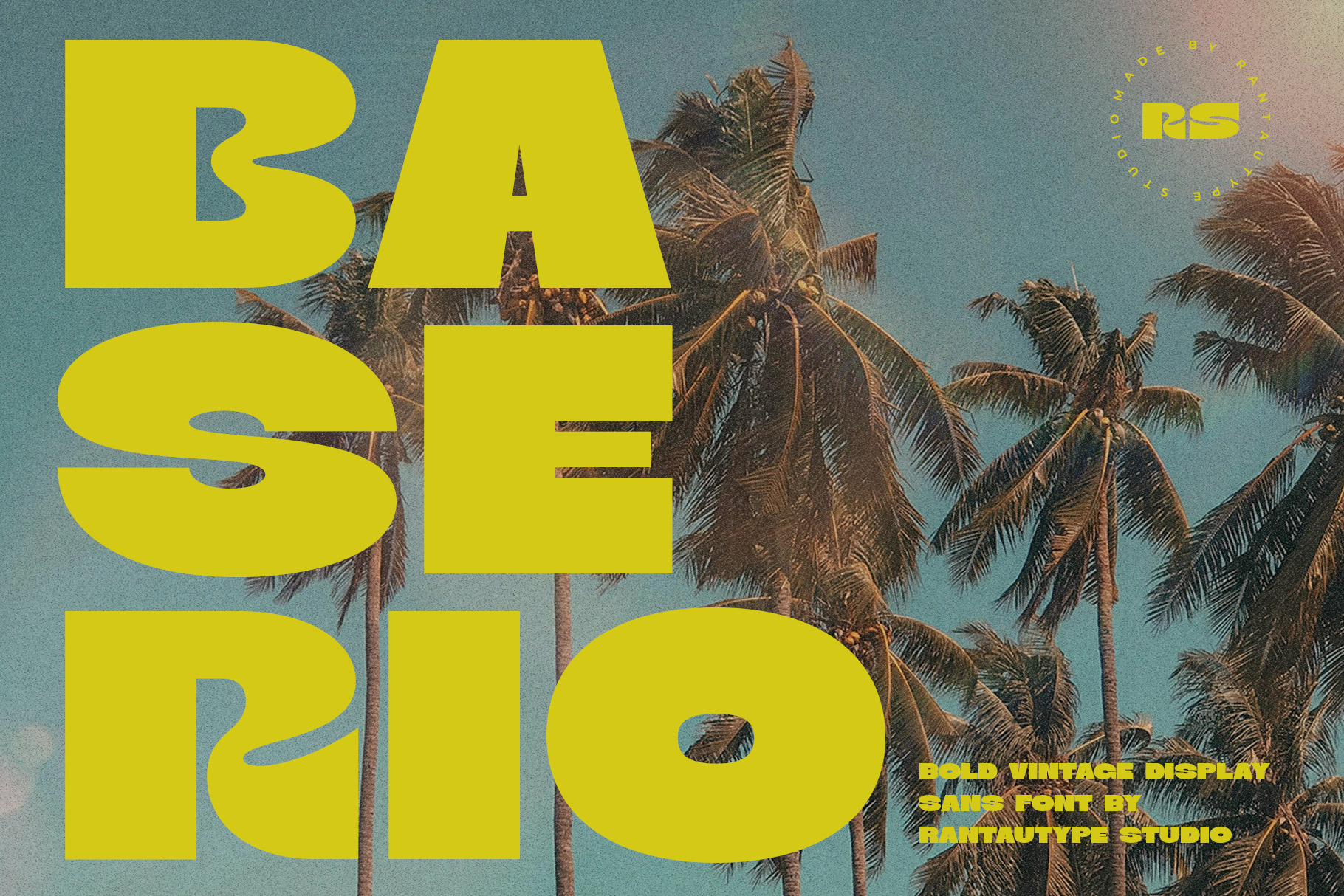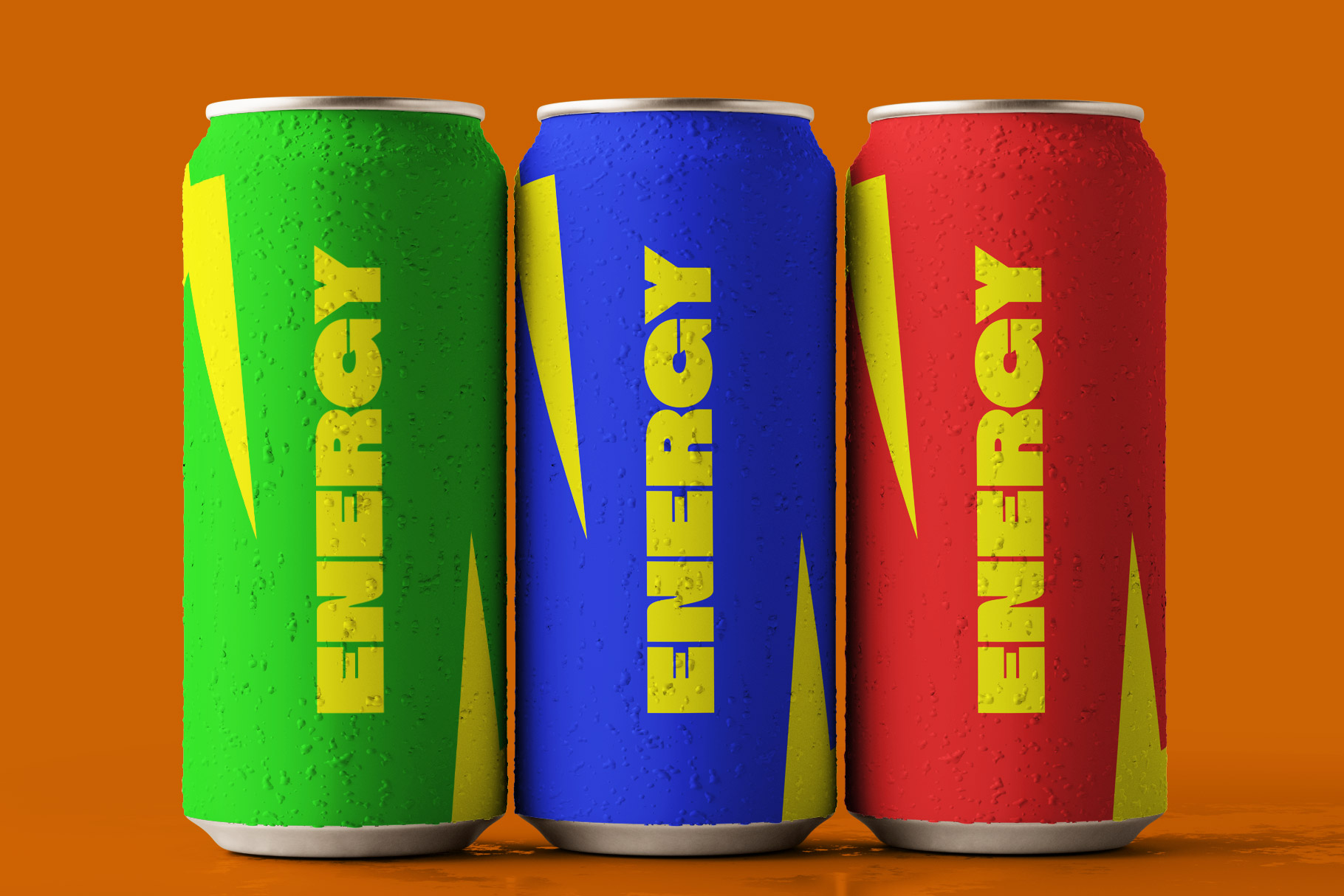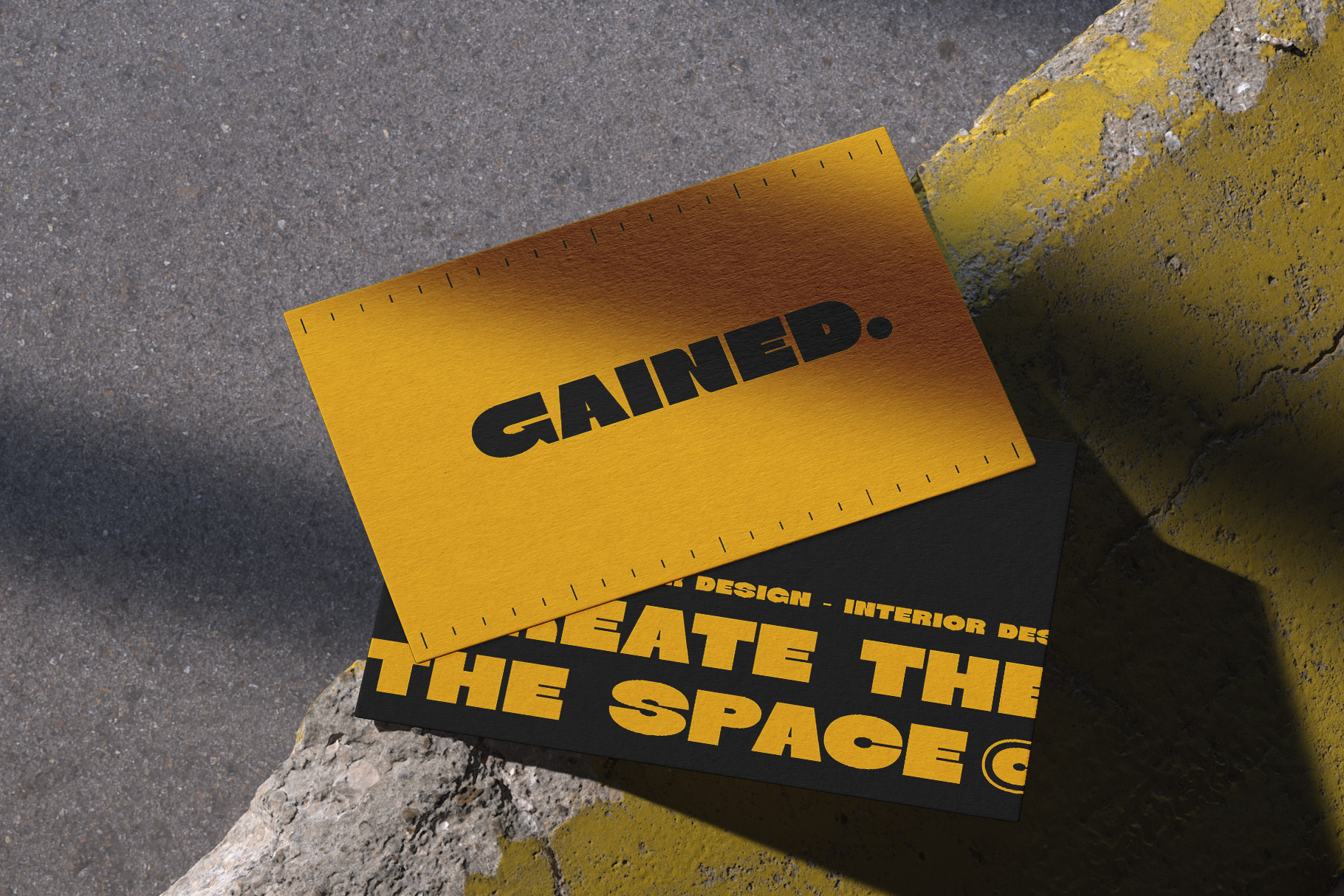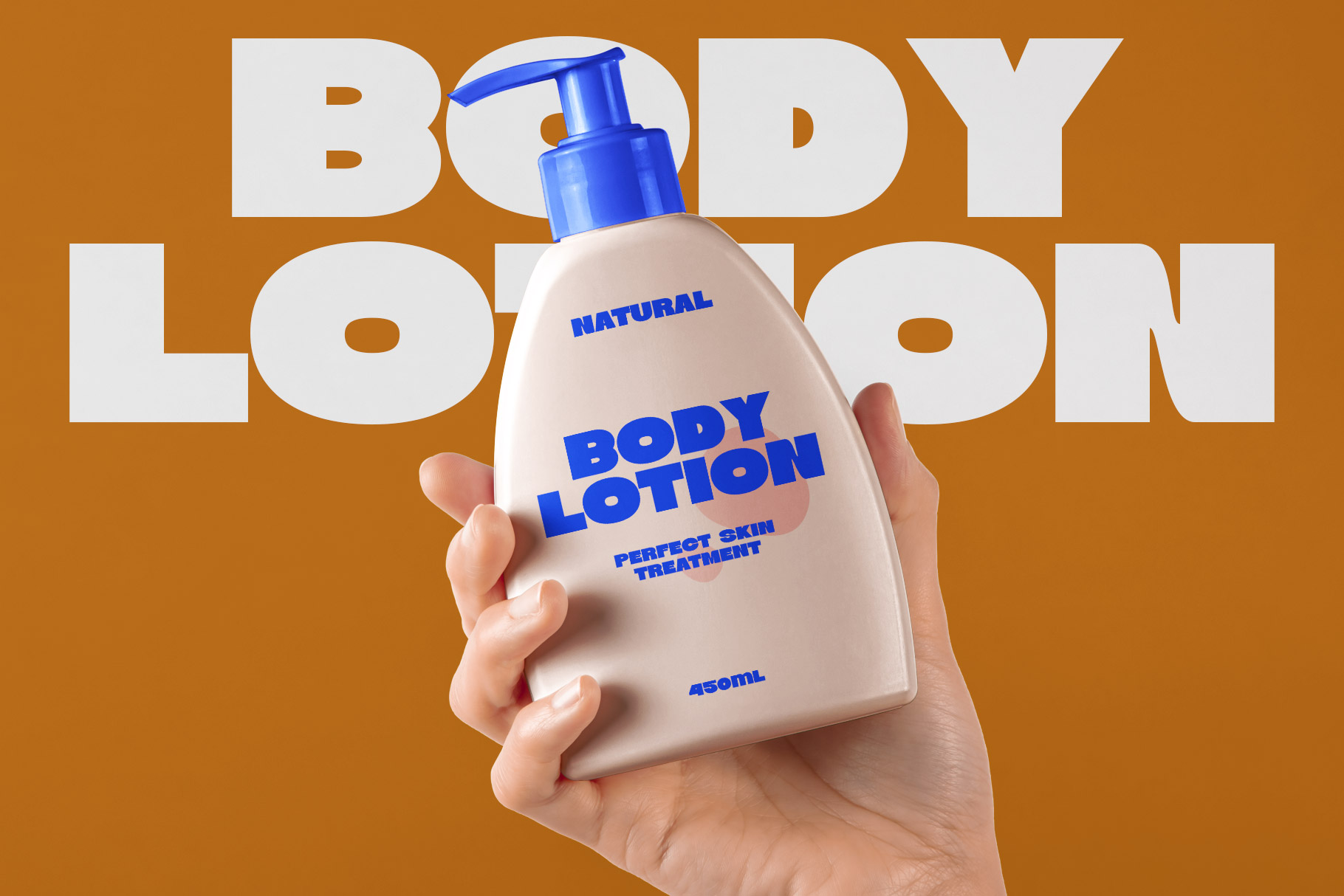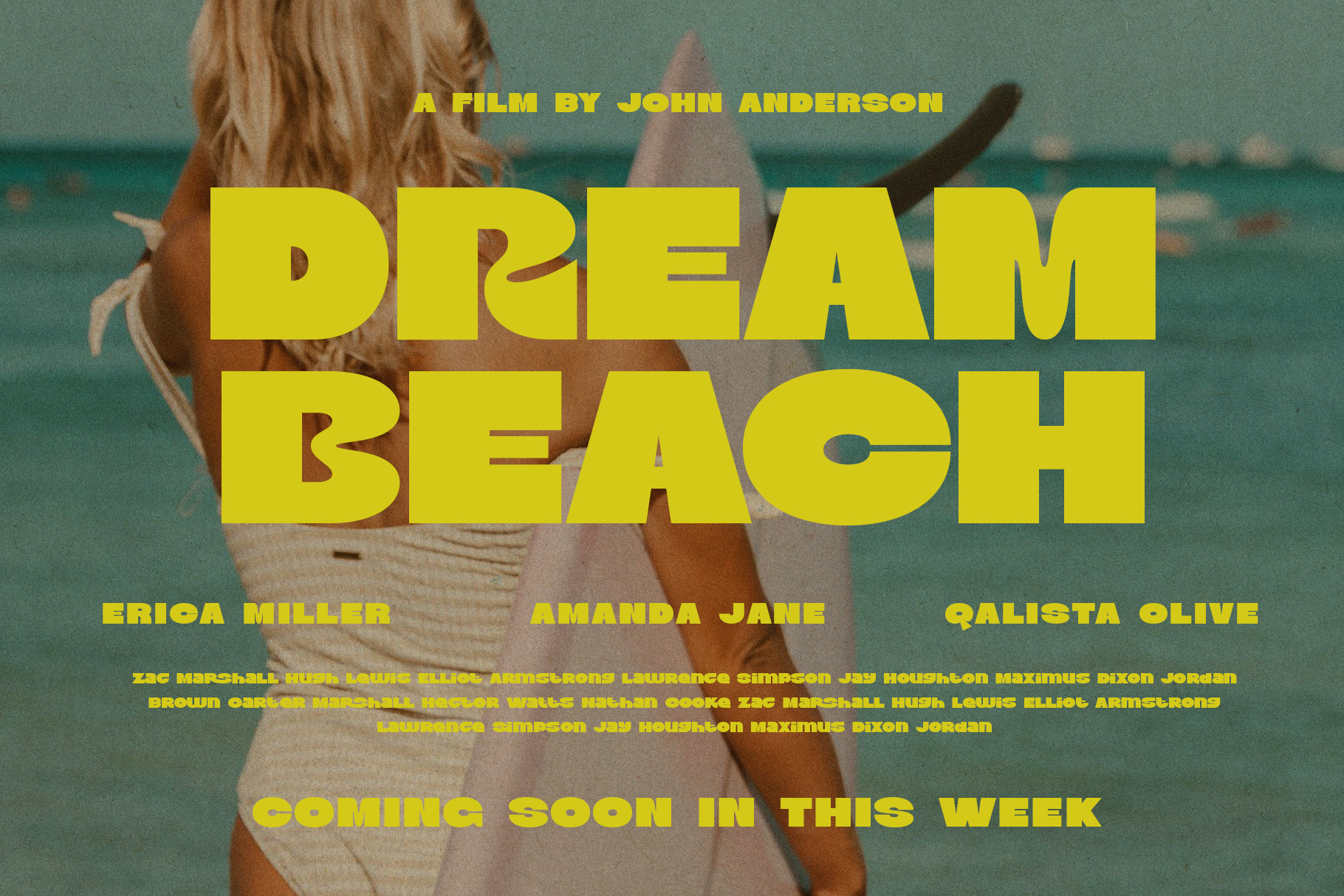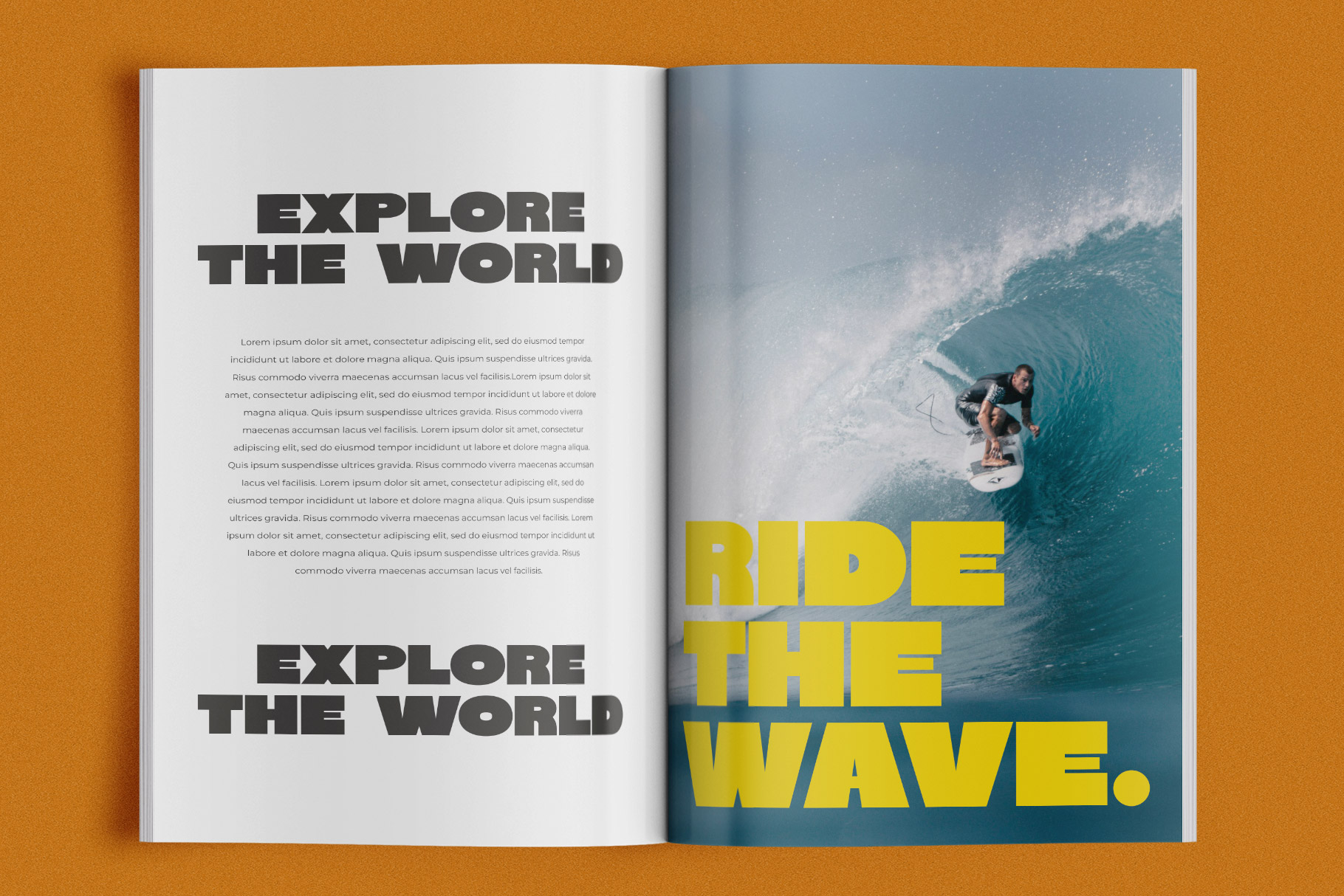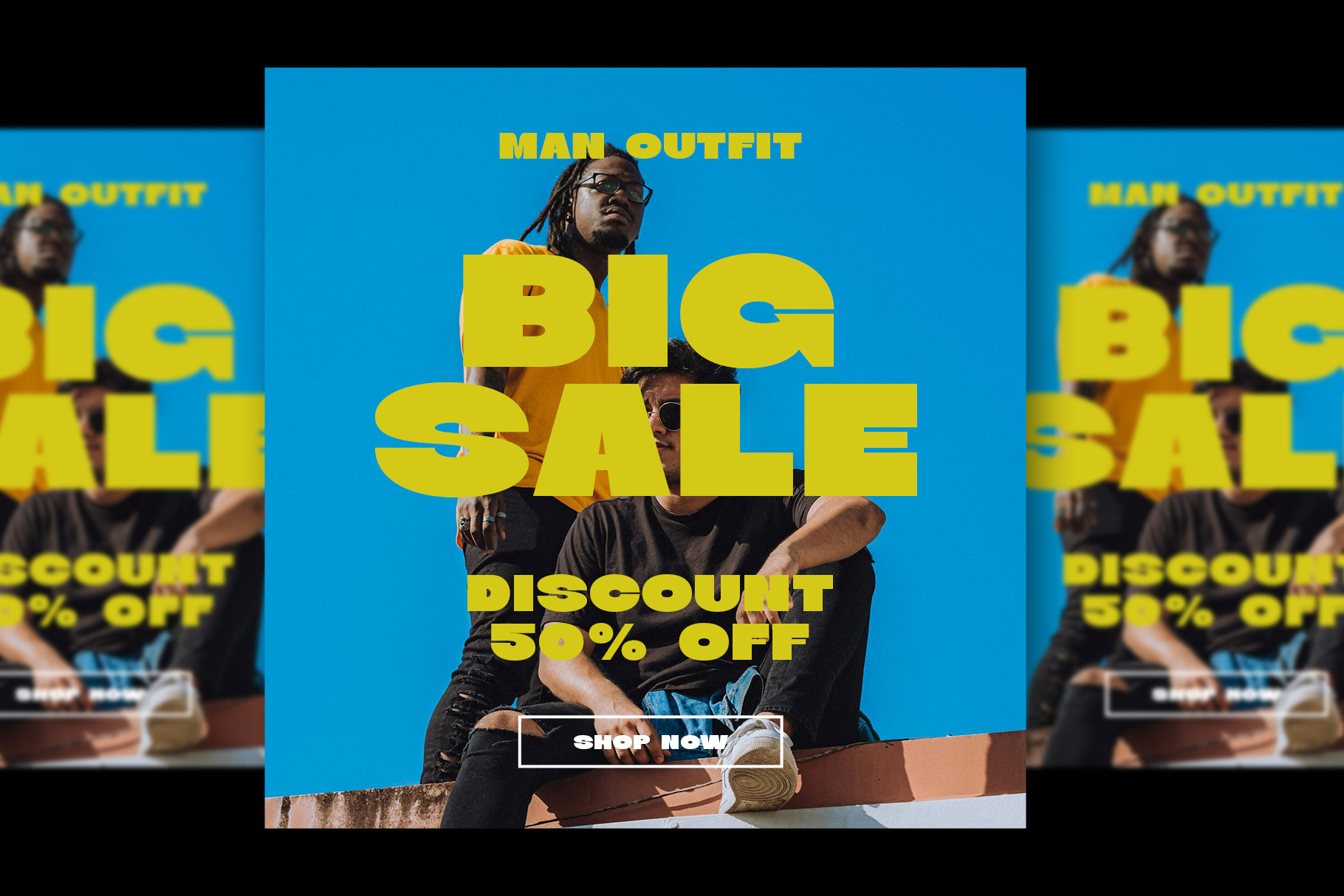
Baserio Bold Vintage Sans Font
Baserio is a new tropical vintage sans serif font inspire by a strong and bold shape. Baserio is a perfectly choice for any creative endeavor, chic, lifestyle design such as logotype, advertisements, watermark on photography, stationery, branding project, display and magazine, invitation, corporate brand, product design, label, business project and many other project with modern touch.